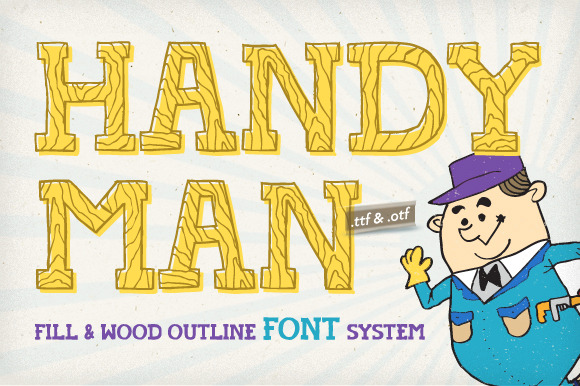
Handyman Font + Wood Outline
Say 'hello' to Handyman and let him make the work for you! It's handcrafted serif display font system and will do a good job.
It is a good fit for invites, comics, illustrated stories, headlines and more.
The pack includes two fonts in two formats (.ttf & .otf): Handyman and Handyman Wood Outline. You can use it separately (so play it with font tester above) as well as combination of two - just see attached images, especially the blue one.
Handyman supports German, Spanish and Polish, as well as all languages with these special letters: ĄÁÄĆĘÉÍŁŃÑÓÖŚÜÚŻŹ.